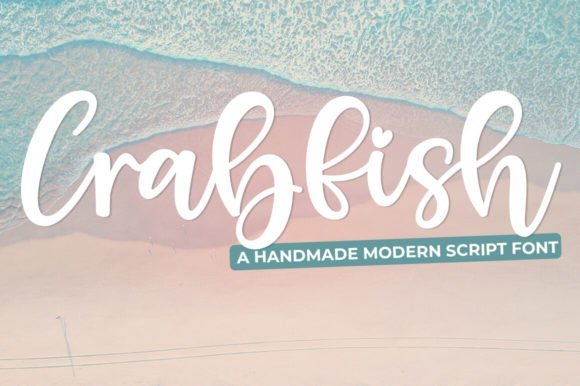
Introduction to Crabfish Font
Introducing the versatile Crabfish Script – a contemporary flourish of calligraphic artistry.
Breezily casual yet elegant, it mesmerizes with its added feature of exquisite swashes Its applications are as varied as they are impressive – seamlessly tying together the visual aspect of logos, ensuring product packaging captivates, ornamenting wedding invitations with a romantic touch, enhancing branding efforts, dominating headlines, striking in signage, ideal for creating distinctive labels and unique signatures, or blending into compelling book covers.
Key Features of Crabfish Font
Why Choose Crabfish Font?